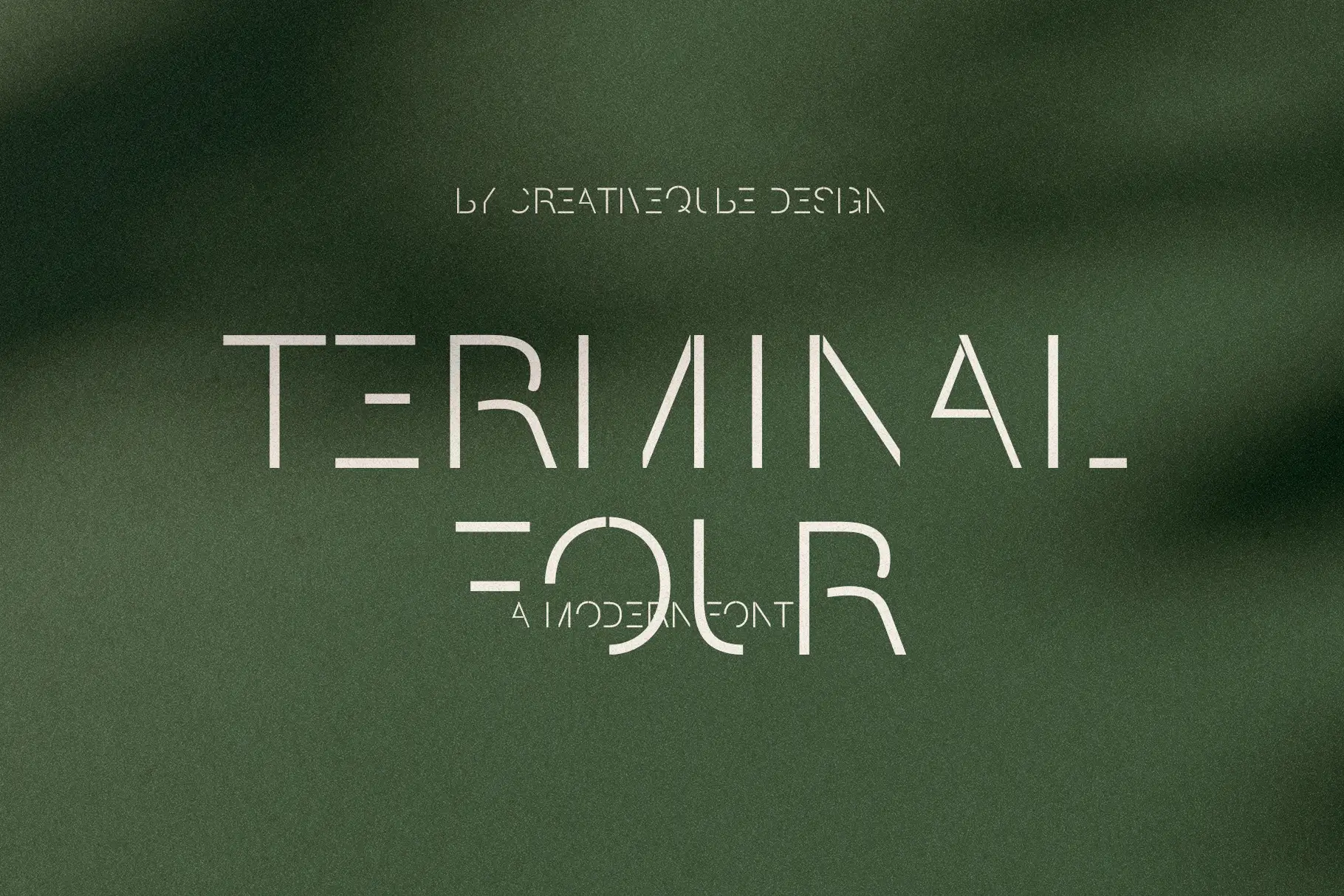
Terminal Four Font By Creativeqube
The Terminal Four Font by Creativeqube is a modern typeface that combines elegance with versatility. This font features a clean and contemporary design, making it suitable for a wide range of applications.
• Stylish and modern design
• Multiple weights for diverse usage
This font is ideal for branding, logos, web design, print materials, and user interfaces. Its modern aesthetic ensures that your projects stand out.